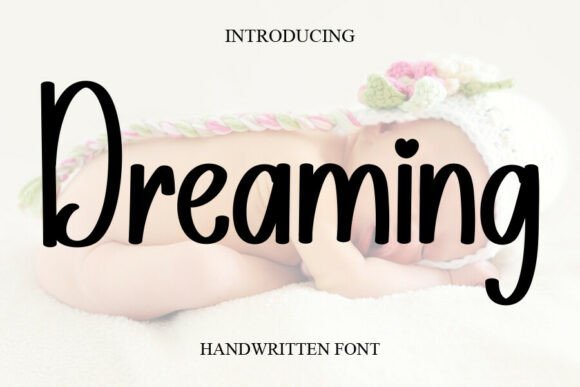
The Perfect Brush Stroke for Your Next Design Project
Have you ever been in the middle of a creative session, staring at a blank canvas, waiting for the perfect idea to strike? It’s that moment of inspiration when everything comes together, and your design starts to take shape. For many designers, that spark of creativity often comes in the form of a beautiful handwritten font. And, trust us, you’re in luck because we’re about to introduce you to one that will change the way you design forever.
Meet the Dreaming Font, a stunning and elegant handwritten font that adds a touch of sophistication to any design. Whether you’re creating wedding invitations, thank you cards, or logos, this font is the perfect addition to your design arsenal. With its PUA encoding, you’ll have access to all the glyphs and alternates you need to create unique and captivating designs. As a designer, you’ll appreciate the versatility and elegance that the Dreaming Font brings to your work.
Dreaming Font Key Features
- Unique Characteristics: The Dreaming Font features a unique, hand-drawn style with intricate details and a dreamy, ethereal feel, making it perfect for creative projects and artistic expressions.
- Font Style: The font is available in a single style, but it includes multiple weights and ornaments, offering flexibility for designers and artists.
Dreaming Font Review
I’ve had the chance to work with the Dreaming Font, and here’s my honest take.
The Dreaming Font has a unique, whimsical feel to it, making it perfect for creative projects that require a touch of elegance.
- Beautiful, flowing lines that evoke a sense of wonder
- Great for use in headings, titles, and body text
- Supports a wide range of languages
While the Dreaming Font has its strengths, it’s not without its weaknesses.
- May be too ornate for some projects, making it difficult to read at small sizes
- Lacks bold and italic variations, which can be a limitation for certain design requirements
- May not be suitable for use in text-heavy documents or articles
The Dreaming Font is a beautiful, eye-catching font that’s perfect for creative projects. However, its limitations may make it less suitable for certain design requirements.
Tips for Getting the Most Out of Dreaming Font
For the best results, use Dreaming Font in conjunction with bold or italic text to create visual interest. Experiment with different font sizes and colors to achieve a unique look.
Dreaming Font is ideal for:
- Creating whimsical titles or headings.
- Designing dreamy or ethereal graphics.
- Adding a touch of elegance to wedding invitations or stationery.
Alternatives to Dreaming Font for Designers
Caslon
Caslon is a serif font that is often used in traditional and classic designs. It is a great alternative to Dreaming Font for designers who want a timeless and elegant look. Caslon is more formal and sophisticated than Dreaming Font, making it suitable for corporate and high-end designs. It has a similar vintage feel, but with a more refined and polished appearance.
Playfair Display is an elegant and luxurious script font that is perfect for designers who want to add a touch of sophistication to their designs. While Dreaming Font has a whimsical and dreamy feel, Playfair Display is more refined and opulent. It is ideal for high-end designs, such as luxury branding and weddings. Playfair Display is more formal and elegant than Dreaming Font, making it suitable for designers who want to convey a sense of luxury and sophistication.
Q: What is the recommended font size for optimal readability with the Dreaming Font?
The recommended font size for optimal readability with the Dreaming Font is between 12 and 18 points. However, this may vary depending on the design application, operating system, and display device being used. Experiment with different font sizes to find the optimal setting for your specific use case.